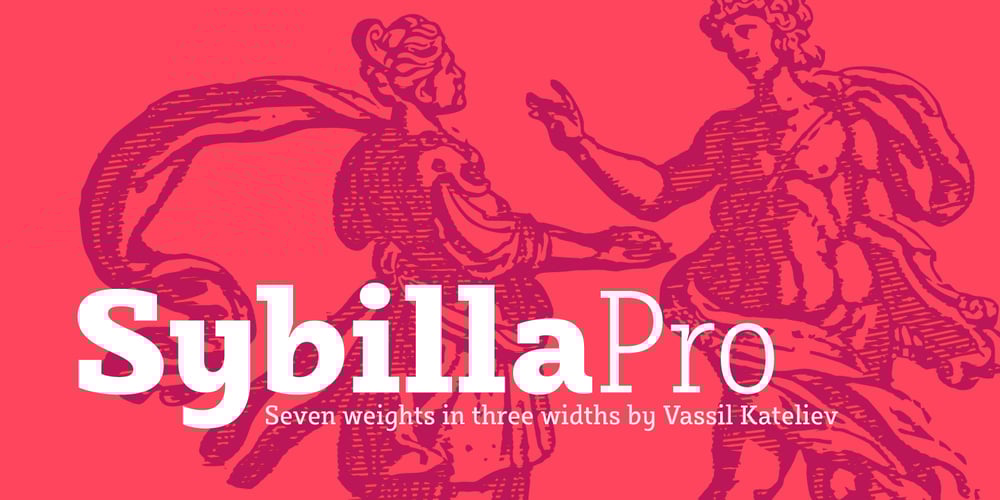
Sybilla Pro Font Family was designed by published by Karandash. Sybilla Pro contains 42 styles and family package options. Sybilla Pro a humanist slab serif well suitable for broad range of design projects. Its unique, soft and almost cursive shapes help define a warm and friendly slab serif that is more legible and easier on the reader’s eye. This newly developed extended type family consists of seven weights in three widths with complimentary true italics. It is ideally suited for advertising and packaging, editorial and publishing, logo, branding and creative industries, poster and billboards, small text and signage as well as web and screen design. Sybilla Pro provides a broad range of advanced typographical features such as small caps, case-sensitive forms, fractions, scientific inferiors, super- and subscript characters. It comes with a complete figure range set of oldstyle and lining figures, each in tabular and proportional widths. Sybilla Pro has extensive multilingual support, covering more than 70 Latin-based languages and specially designed Cyrillic that works harmoniously with its Latin counterparts – a perfect choice for projects that need both writing systems running side by side.